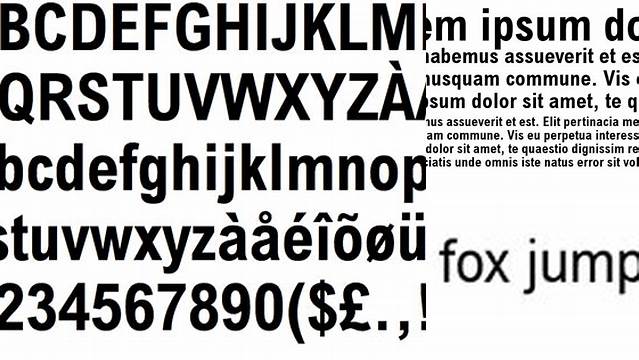
Arial Condensed Bold: Free Font Guide & Best Uses
Hey guys! Are you on the hunt for that perfect font to make your designs pop? Look no further! We're diving deep into the world of Arial Condensed Bold, a font thatâs not just versatile but also a total game-changer for readability and visual impact. In this guide, we'll explore everything you need to know about Arial Condensed Bold, from its history and characteristics to its best uses and where you can snag it for free. So, buckle up and let's get started!
What is Arial Condensed Bold?
In the world of typography, Arial Condensed Bold stands out as a sans-serif typeface that combines clarity with a strong, assertive presence. This font is a variation of the widely recognized Arial family, specifically designed with a narrower width (condensed) and a heavier weight (bold). This combination makes it an excellent choice for situations where space is limited, but readability remains paramount. Whether you're crafting headlines, designing brochures, or working on web layouts, Arial Condensed Bold offers a professional and contemporary look. Let's break down what makes this font so special. The 'condensed' aspect means the letters are drawn closer together, allowing for more characters to fit within a given space. This is incredibly useful in designs where you need to convey a lot of information without sacrificing clarity. Think about newspapers, magazines, and posters â places where every inch counts. Arial Condensed Bold excels in these environments, ensuring your message gets across without appearing cramped or cluttered. The 'bold' attribute adds a significant visual weight to the characters, making them stand out more prominently. This is crucial for headlines, titles, and any text that needs to grab the reader's attention immediately. The bold weight ensures that the text is easily legible, even from a distance or against busy backgrounds. It's like giving your words a megaphone, ensuring they are heard loud and clear. Arial Condensed Bold is not just about functionality; it also brings a certain aesthetic quality to your designs. Its clean, sans-serif lines provide a modern and professional appearance, making it suitable for a wide range of applications. Whether you're designing a corporate report, a marketing brochure, or a website, this font can help you achieve a polished and contemporary look. The fontâs versatility extends beyond print and digital media. It works equally well in both environments, ensuring consistency across all your communication channels. This is particularly important for brands that want to maintain a cohesive visual identity. Using Arial Condensed Bold across all platformsâfrom your website and social media to your printed materialsâhelps reinforce your brand's message and image. Its ability to perform well in various contexts makes it a valuable asset in any designer's toolkit. In summary, Arial Condensed Bold is a powerful font that combines space efficiency with high impact and readability. Its condensed form allows for more text in less space, while its bold weight ensures your message commands attention. Whether you're a seasoned designer or just starting, understanding and utilizing this font can significantly enhance the visual appeal and effectiveness of your projects.
History and Evolution of Arial
The story of Arial is a fascinating journey through the world of typography, and understanding its history can give you a deeper appreciation for Arial Condensed Bold. Arial was originally designed in 1982 by a team at Monotype, led by Robin Nicholas and Patricia Saunders. The primary goal was to create a font that was metrically compatible with Helvetica, a widely used and highly regarded typeface. This compatibility was crucial because it allowed Microsoft to use Arial as a system font in Windows, providing a cost-effective alternative to licensing Helvetica. But Arial is more than just a Helvetica clone; it has its own distinct characteristics and a unique evolution. The design of Arial was influenced by several factors, including the need for on-screen readability in the early days of personal computing. The designers at Monotype carefully crafted the letterforms to ensure they remained clear and legible even at small sizes and on low-resolution displays. This focus on readability is one of the key reasons why Arial has become such a popular choice for a wide range of applications. One of the most interesting aspects of Arial's history is its relationship with Helvetica. While the two fonts share many similarities, there are subtle differences that set them apart. For example, Arial's strokes tend to be cut at a slight angle, while Helvetica's are typically cut horizontally. These subtle variations give Arial a slightly more open and friendly appearance compared to the more formal and geometric look of Helvetica. Over the years, Arial has evolved and expanded into a family of fonts, including variations such as Arial Bold, Arial Italic, Arial Black, and, of course, Arial Condensed Bold. Each of these variations serves a specific purpose, providing designers with a versatile toolkit for creating visually appealing and effective designs. Arial Condensed Bold, in particular, was developed to address the need for a font that could fit more text into a limited space without sacrificing readability. This made it an ideal choice for newspapers, magazines, and other publications where space is at a premium. The evolution of Arial has also been shaped by the changing landscape of technology. As screen resolutions have improved and digital devices have become more sophisticated, Arial has been refined and optimized for use in digital environments. This ongoing process of refinement ensures that Arial remains a relevant and effective typeface in the modern era. In summary, the history of Arial is a testament to the importance of both functionality and adaptability in typography. From its origins as a cost-effective alternative to Helvetica to its current status as a widely used and respected typeface, Arial has proven its ability to meet the needs of designers and readers alike. Understanding this history can help you appreciate the nuances of Arial Condensed Bold and make informed decisions about when and how to use it in your own projects.
Key Characteristics of Arial Condensed Bold
Let's dive into the nitty-gritty of what makes Arial Condensed Bold tick. This font isn't just a random assortment of lines and curves; it's a carefully crafted typeface with specific characteristics that make it a powerhouse in the design world. The unique blend of a condensed form and bold weight gives it a distinct personality and functionality. When you're picking a font, understanding these traits can help you decide if Arial Condensed Bold is the right fit for your project. One of the most noticeable features of Arial Condensed Bold is its condensed nature. What does this mean, exactly? Well, the letters are designed to be narrower than in the regular Arial font. This allows you to pack more characters into a smaller space, which is super handy when you're working on layouts where space is tight. Think about newspaper headlines, posters, or even website navigation menus â Arial Condensed Bold can help you convey your message without making things look cramped. Then there's the 'bold' part. The bold weight adds a significant thickness to the strokes of the letters, making them stand out and grab attention. This is crucial for elements like headings and subheadings, where you want to make a strong visual statement. The bold weight also improves readability, especially in situations where the text might be viewed from a distance or against a busy background. It's like giving your words a boost, ensuring they don't get lost in the visual noise. Arial Condensed Bold is a sans-serif font, meaning it lacks the small decorative strokes (serifs) that you find in fonts like Times New Roman. This gives it a clean, modern look that's perfect for contemporary designs. The absence of serifs also makes the font more legible on screens, which is why it's a popular choice for websites and digital applications. The overall design of Arial Condensed Bold is characterized by its simplicity and clarity. The letterforms are straightforward and easy to recognize, which is essential for readability. There aren't any fancy flourishes or distracting elements â just clean lines and a consistent structure. This simplicity makes Arial Condensed Bold incredibly versatile, allowing it to work well in a wide range of contexts, from formal reports to casual marketing materials. Another key characteristic is its uniformity. The letters in Arial Condensed Bold have a consistent stroke width and a balanced appearance. This uniformity contributes to the font's overall legibility and makes it easy on the eyes. It also ensures that the font maintains its visual integrity, even when scaled up or down in size. The spacing between letters and words in Arial Condensed Bold is carefully considered to enhance readability. The condensed nature of the font could potentially lead to overcrowding, but the spacing is meticulously designed to prevent this. Each letter has enough breathing room to stand out, ensuring that the text remains clear and easy to read. In essence, Arial Condensed Bold is a font that combines efficiency with impact. Its condensed form allows you to maximize space, while its bold weight ensures your message commands attention. Its clean, sans-serif design and uniform letterforms contribute to its readability and versatility, making it a valuable asset in any designer's toolkit.
Best Uses for Arial Condensed Bold
So, you're armed with the knowledge of what Arial Condensed Bold is and its key characteristics. But where does this font really shine? Let's explore the best uses for Arial Condensed Bold, so you can make the most of its unique qualities in your projects. This font is a workhorse, capable of handling a variety of design challenges, but knowing its sweet spots will help you create truly impactful visuals. One of the most common and effective uses for Arial Condensed Bold is in headlines and titles. The bold weight instantly grabs attention, making it perfect for drawing readers in. The condensed form ensures that your headline fits neatly into the available space, even if it's a bit lengthy. Whether you're designing a poster, a magazine cover, or a website banner, Arial Condensed Bold can help you create a headline that packs a punch. In print design, Arial Condensed Bold is a fantastic choice for brochures, flyers, and newsletters. Its condensed nature allows you to fit more text onto the page without sacrificing readability. This is particularly useful when you have a lot of information to convey and limited space to work with. The bold weight ensures that key details stand out, guiding the reader's eye to the most important content. Moving into the digital realm, Arial Condensed Bold excels in website design. It's a great option for navigation menus, where space is often limited. The condensed form allows you to include more menu items without cluttering the layout, while the bold weight ensures that the menu is easily visible and accessible. It also works well for headings and subheadings on web pages, helping to create a clear visual hierarchy and improve the overall user experience. Arial Condensed Bold is also a go-to font for signage and displays. Its bold weight makes it highly legible from a distance, which is crucial for signs that need to be read quickly and easily. The condensed form is beneficial in situations where you need to fit a lot of text onto a sign, such as directories or informational displays. Think about airport signs, conference banners, and retail displays â Arial Condensed Bold is often the font of choice. Another area where Arial Condensed Bold shines is in corporate communications. Its clean, professional appearance makes it ideal for reports, presentations, and other business documents. Using Arial Condensed Bold in your corporate materials can help you convey a sense of authority and competence. It's a font that says, âWe mean business,â while still maintaining a modern and approachable vibe. In advertising and marketing materials, Arial Condensed Bold can be a powerful tool for creating eye-catching visuals. Its bold weight commands attention, making it perfect for headlines, slogans, and call-to-action buttons. The condensed form allows you to create impactful designs even in limited spaces, such as social media ads or small print advertisements. Arial Condensed Bold is a versatile font that's well-suited for a wide range of applications. Its condensed form and bold weight make it an excellent choice for headlines, titles, signage, and situations where space is limited. Whether you're working on print design, website design, corporate communications, or advertising, Arial Condensed Bold can help you create visuals that are both effective and visually appealing. So, next time you're faced with a design challenge, consider adding Arial Condensed Bold to your font arsenal â you might be surprised at how much it can elevate your work.
Alternatives to Arial Condensed Bold
Okay, so maybe you can't find Arial Condensed Bold exactly, or perhaps you're just looking to mix things up a bit. No worries! The world of typography is vast and exciting, and there are tons of fantastic alternatives to Arial Condensed Bold that can give your designs a fresh, new vibe. Let's explore some of the best options out there. One of the most popular and versatile alternatives is Roboto Condensed. Roboto Condensed is part of the larger Roboto family, designed by Christian Robertson for Google. It shares many of the same characteristics as Arial Condensed Bold â it's a sans-serif font with a clean, modern look, and it comes in a variety of weights, including a bold condensed version. Roboto Condensed is highly legible and works well in a wide range of applications, from headlines and body text to website navigation and print materials. Plus, it's available for free on Google Fonts, making it a super accessible option. Another excellent alternative is Open Sans Condensed. Open Sans, designed by Steve Matteson, is another Google Fonts favorite, known for its readability and friendly appearance. The condensed version offers a similar space-saving advantage to Arial Condensed Bold, while maintaining a clean and modern aesthetic. Open Sans Condensed is a great choice for projects where you want a slightly softer and more approachable feel than Arial Condensed Bold provides. If you're looking for a font with a bit more personality, consider Montserrat. Montserrat, designed by Julieta Ulanovsky, is a sans-serif font inspired by the urban typography of Buenos Aires. It has a geometric, yet warm, feel that makes it a great choice for branding, headlines, and display text. While Montserrat doesn't have a dedicated condensed version, its regular and bold weights can still provide a similar impact to Arial Condensed Bold in many situations. For a more industrial and technical vibe, check out Bebas Neue. Bebas Neue, designed by Ryoichi Tsunekawa, is a clean and modern sans-serif font that's become incredibly popular for its tall, narrow letterforms. While it's not technically a condensed font, its proportions give it a similar space-saving quality. Bebas Neue is a fantastic choice for headlines, posters, and other display applications where you want a strong, contemporary look. If you're aiming for a more classic and elegant feel, consider Lato. Lato, designed by Ćukasz Dziedzic, is a sans-serif font that combines warmth with clarity. It has a subtle roundedness that makes it feel friendly and approachable, while still maintaining a professional appearance. Lato comes in a variety of weights, including bold, and can be a great alternative to Arial Condensed Bold in situations where you want a touch of sophistication. When choosing an alternative to Arial Condensed Bold, it's important to consider the overall tone and style of your project. Think about the message you're trying to convey and the audience you're trying to reach. A font that works well for a corporate report might not be the best choice for a casual marketing campaign, and vice versa. Experiment with different fonts and see what feels right for your specific needs. Remember, the goal is to find a font that not only looks good but also enhances the readability and impact of your design. There are countless fantastic fonts out there, so don't be afraid to explore and try new things. Who knows, you might just discover your next favorite typeface!
Conclusion: Mastering Arial Condensed Bold
Alright, guys, we've reached the end of our deep dive into the world of Arial Condensed Bold. This font, as we've seen, is a true powerhouse in the design world, offering a unique blend of efficiency, readability, and visual impact. Whether you're a seasoned designer or just starting out, understanding how to use Arial Condensed Bold effectively can significantly enhance your projects. We've covered a lot of ground in this guide, from the font's history and key characteristics to its best uses and where to find it (or suitable alternatives) for free. Hopefully, you now have a solid understanding of what makes Arial Condensed Bold tick and how to leverage its strengths in your own work. One of the key takeaways is the versatility of Arial Condensed Bold. Its condensed form and bold weight make it an excellent choice for headlines, titles, and signage, where space is often limited and readability is paramount. Whether you're designing a website, a brochure, a poster, or a corporate report, this font can help you convey your message with clarity and impact. We've also explored the importance of understanding the nuances of typography. Choosing the right font is about more than just aesthetics; it's about conveying the right tone and message. Arial Condensed Bold, with its clean, sans-serif design, brings a modern and professional feel to any project. But, as we discussed, there are also many fantastic alternatives out there, each with its own unique personality. Fonts like Roboto Condensed, Open Sans Condensed, and Montserrat can offer similar functionality while adding a slightly different flavor to your designs. When selecting a font, it's crucial to consider the overall context of your project. Think about your target audience, the message you want to convey, and the medium you're working with. A font that works well in print might not be the best choice for a website, and vice versa. Experimenting with different fonts and font combinations is key to finding the perfect fit. We also touched on the importance of licensing and font resources. While Arial Condensed Bold is often pre-installed on computers, it's always a good idea to double-check the licensing terms before using it in a commercial project. Resources like Google Fonts and Font Squirrel offer a wealth of free, high-quality fonts that you can use without worrying about copyright issues. Remember, typography is an art form, and mastering it takes time and practice. Don't be afraid to experiment, explore new fonts, and learn from your mistakes. The more you work with typography, the better you'll become at choosing the right font for the right situation. In conclusion, Arial Condensed Bold is a valuable tool in any designer's toolkit. Its versatility, readability, and visual impact make it a go-to choice for a wide range of projects. By understanding its strengths and limitations, and by exploring the many alternatives available, you can create designs that are both effective and visually stunning. So go forth, experiment with typography, and let your creativity shine!